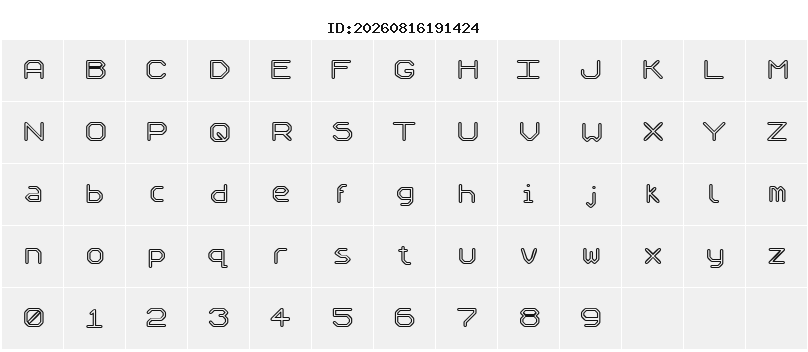
• Font Name: Speculum Outline
• Full Font Name: Speculum Outline
• Designer: D Keith
• Manufacturer: Ocarina
• Description: Based on the character set of the ZX Spectrum.